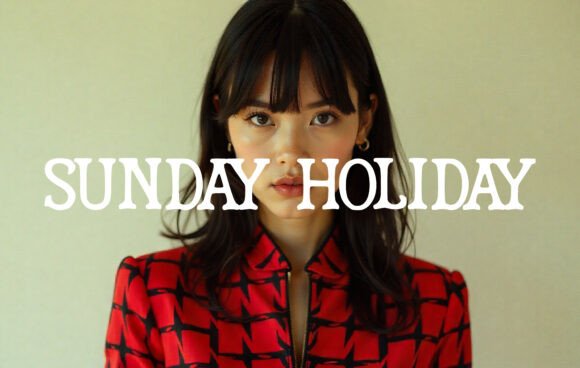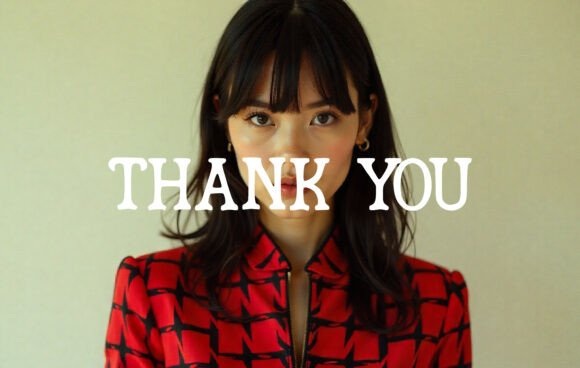
Fynelora Font: Unleash the Power of Rugged Elegance
In the world of typography, fonts play a crucial role in conveying the tone and personality of a brand or design. For designers and crafters looking for a bold and adventurous look, Fynelora Font is an excellent choice. This stunning display typeface boasts a distinctly rugged and organic charm, making it perfect for outdoor apparel branding, rustic designs, craft beer labels, movie posters, and more.
The Distinctive Features of Fynelora Font
Fynelora Font is a bold, all-caps display typeface that exudes a powerful, vintage, and adventurous spirit. Its heavy serifs and weathered, slightly uneven texture give it a unique and captivating appearance. The font’s rugged charm is reminiscent of worn stone or metal, evoking a sense of history and authenticity.
Perfect for Outdoor Apparel Branding
For outdoor apparel brands, Fynelora Font is an excellent choice for creating a strong and impactful visual identity. The font’s bold and rugged appearance perfectly captures the spirit of adventure and exploration, making it ideal for brands that want to convey a sense of fearlessness and resilience.
Whether you’re designing a logo, label, or advertisement, Fynelora Font is sure to make a statement. Its distinctive features and weathered texture give it a worn, vintage look that’s perfect for brands that want to evoke a sense of nostalgia and tradition.
Rustic Designs and Craft Beer Labels
Fynelora Font is also an excellent choice for rustic designs and craft beer labels. The font’s organic charm and rugged texture give it a down-to-earth, homespun feel that’s perfect for brands that want to convey a sense of authenticity and craftsmanship.
For craft beer labels, Fynelora Font is a great way to add a touch of personality and whimsy. The font’s bold and adventurous appearance is sure to stand out on store shelves, making it an excellent choice for breweries that want to differentiate themselves from the competition.
Movie Posters and Dramatic Designs
Fynelora Font is also well-suited for movie posters and other dramatic designs. The font’s bold and impactful appearance is sure to grab attention, making it perfect for titles, taglines, and other key elements of a poster.
The font’s rugged texture and weathered appearance also give it a sense of grit and realism, making it an excellent choice for films that want to convey a sense of intensity and drama.
Key Features of Fynelora Font
- Bold and all-caps display typeface: Fynelora Font is designed to make a statement, with bold and all-caps lettering that’s perfect for headlines, titles, and other key elements of a design.
- Heavy serifs and weathered texture: The font’s heavy serifs and weathered texture give it a rugged and organic charm that’s perfect for brands that want to convey a sense of adventure and authenticity.
- Rugged and adventurous spirit: Fynelora Font is designed to evoke a sense of fearlessness and resilience, making it perfect for brands that want to convey a sense of boldness and confidence.
Fynelora Font is a powerful and captivating display typeface that’s perfect for designers and crafters looking for a bold and adventurous look. Its rugged charm, heavy serifs, and weathered texture make it an excellent choice for outdoor apparel branding, rustic designs, craft beer labels, movie posters, and more.